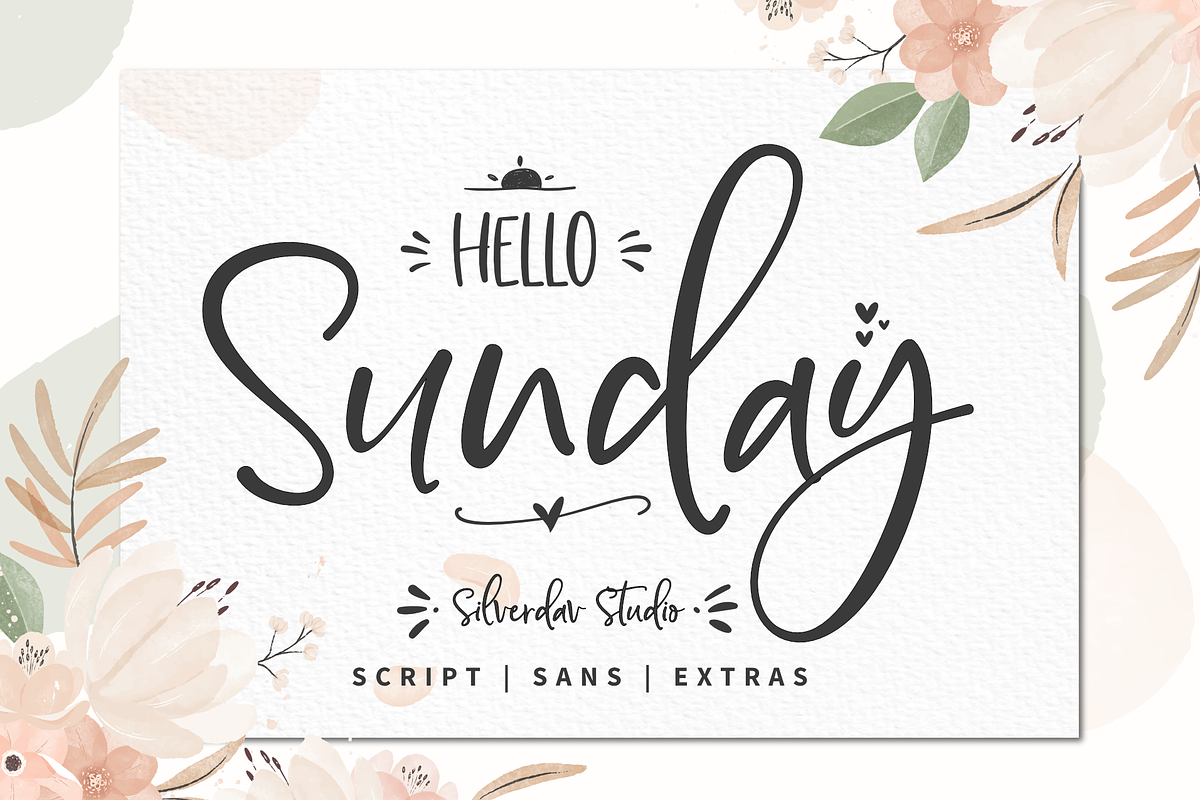
Hello Sunday - Font Trio *Update* Free Download
Hello Sunday - Font Trio Free Download
Hello Sunday - Font Trio Free Download is a charming collection of three distinct fonts, designed to bring a fresh and playful feel to your designs. This trio includes a handwritten script font, a clean sans-serif font, and a bold display font, offering endless creative possibilities. Perfect for creating logos, invitations, branding materials, and social media content, Hello Sunday - Font Trio Free Download allows you to combine the fonts to create a unique look for every project. Whether you're working on a modern brand, a whimsical event, or a personal design, experiment with this versatile trio in personal projects before purchasing a commercial license. Add fun, personality, and variety to your designs with this beautifully crafted font trio.